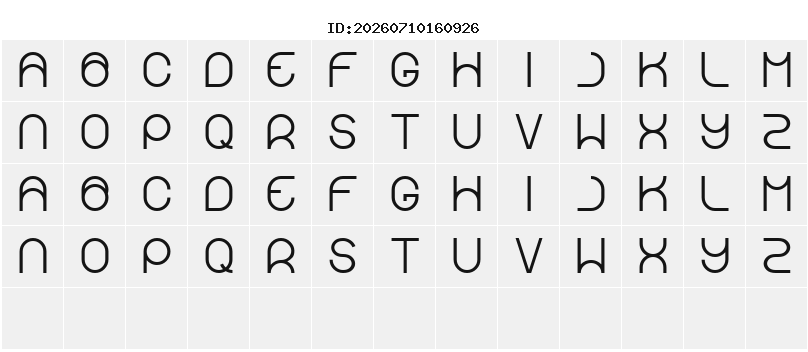
gembi Preview
• Font Name: gembi
• Font ID: gembi:Version 1.00
• Full Font Name: gembi
• Version: Version 1.00 February 28, 2011, initial release
• PostScript Name: gembi
About gembi.ttf
gembi.ttf is a modern, elegant sans-serif font designed for ultimate readability and visual harmony. Perfect for branding, headlines, web design, and print materials.